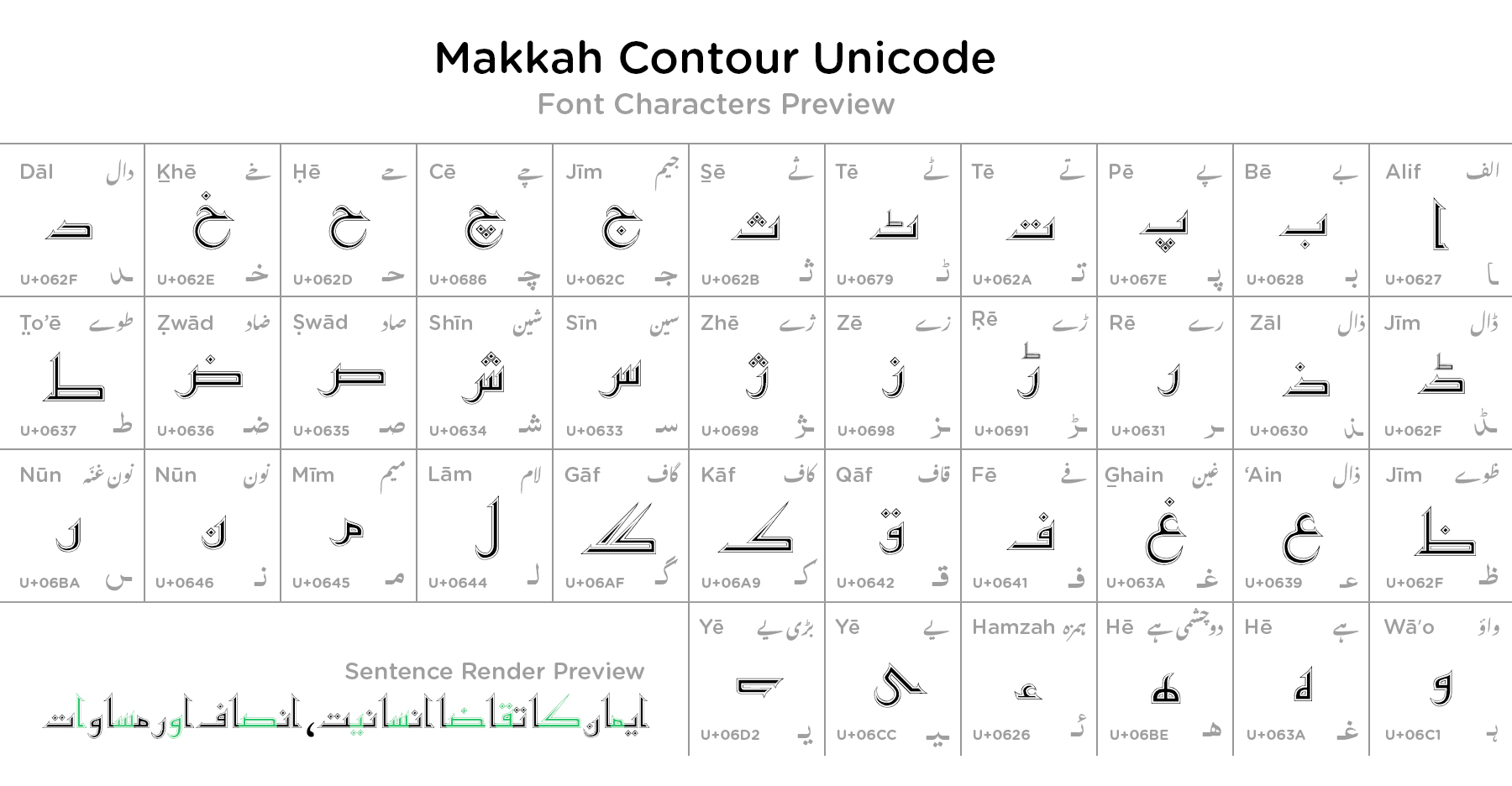
Makkah Contour Unicode, designed by Syed Manzar Hasan Zaidi and published by Axis Softmedia Pvt. Ltd., is a contemporary calligraphy font known for its intricate design. Featuring letters composed of three lines, with two thin outline lines enclosing a thicker central line, it exudes a decorative aesthetic. Vertical letters are characterized by triangular, pointy edges, adding to the font's uniqueness. Drawing inspiration from the Naskh script with modern influences, the font was released on October 9, 2017. With 444 characters and 497 glyphs, it offers extensive language compatibility, including Urdu, Arabic, Latin, and Persian. The font's consistent thickness and delicate strokes ensure excellent legibility, particularly on screens, making it ideal for longer text blocks where readability is crucial. While limited to a single font-weight (regular), it finds versatile applications in branding, Arabic calligraphy, logos, posters, games, and book covers. Compatible with various Unicode blocks such as Basic Latin, Arabic, and Geometric Shapes, Makkah Contour Unicode provides flexibility and usability across different platforms and design contexts.